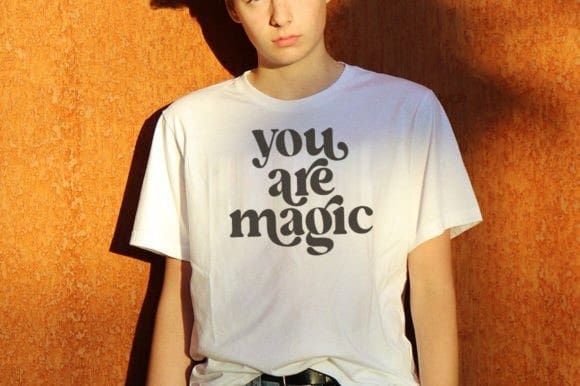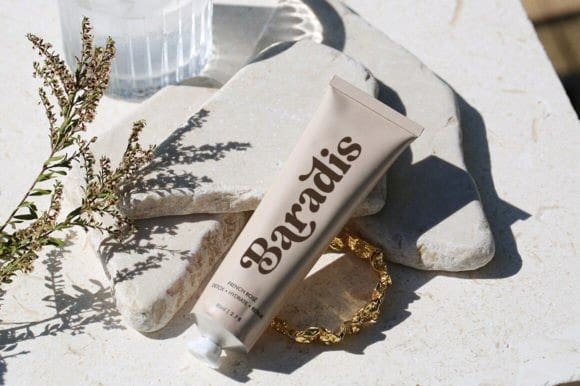
Stagina Font
Stagina Font is a modern vintage serif font packaged in a modern and classy style, complete with access to your OpenType features to access a large selection of alternates letters and ligatures, the choice of letters you like from variations of uppercase and lowercase letters to get a display luxurious and elegant.
Stagina Font perfectly made to be applied especially in logo, and the other various formal forms such as invitations, labels, logos, magazine headers, books, greeting / wedding cards, Clothing Branding, product packaging, fashion, make up, quotes, stationery, novels,cutting, labels or any type of advertising purpose.